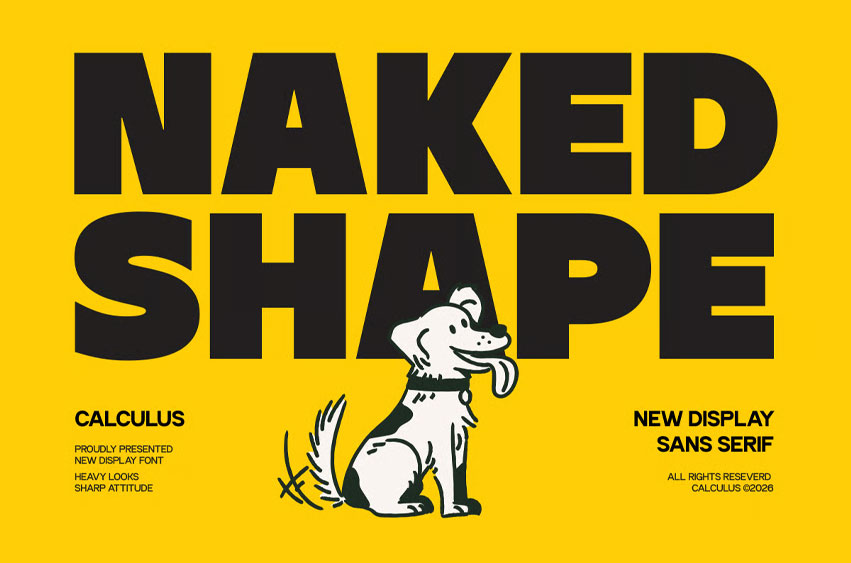
Naked Shape Font
Naked Shape Font Bold Display Sans Serif is a powerful display typeface designed to make a bold statement through simplicity, scale, and confident form. Built with heavy geometric letterforms, clean construction, and strong visual weight, CC Naked Shape delivers an unapologetically direct typographic voice that instantly commands attention.
Featuring oversized proportions, sharp contours, and solid shapes—as seen in its striking headline presence—CC Naked Shape embraces a minimalist yet impactful aesthetic. Its bold structure creates exceptional readability at large sizes, making it perfect for posters, branding systems, advertising campaigns, packaging, and contemporary visual identities that demand maximum visibility.
Crafted with modern display principles, CC Naked Shape balances raw strength with clean geometry. The thick strokes and straightforward construction create a confident personality that feels modern, energetic, and highly versatile across both print and digital applications.
• Bold Display Sans Serif Style
• Heavy Geometric Construction
• Clean & Powerful Letterforms
• Strong Visual Presence
• Modern Minimalist Character
• Perfect for Headlines & Posters
• Suitable for Branding, Packaging, Advertising & Editorial
• High Readability at Large Sizes
CC Naked Shape delivers pure visual impact — a bold display sans s